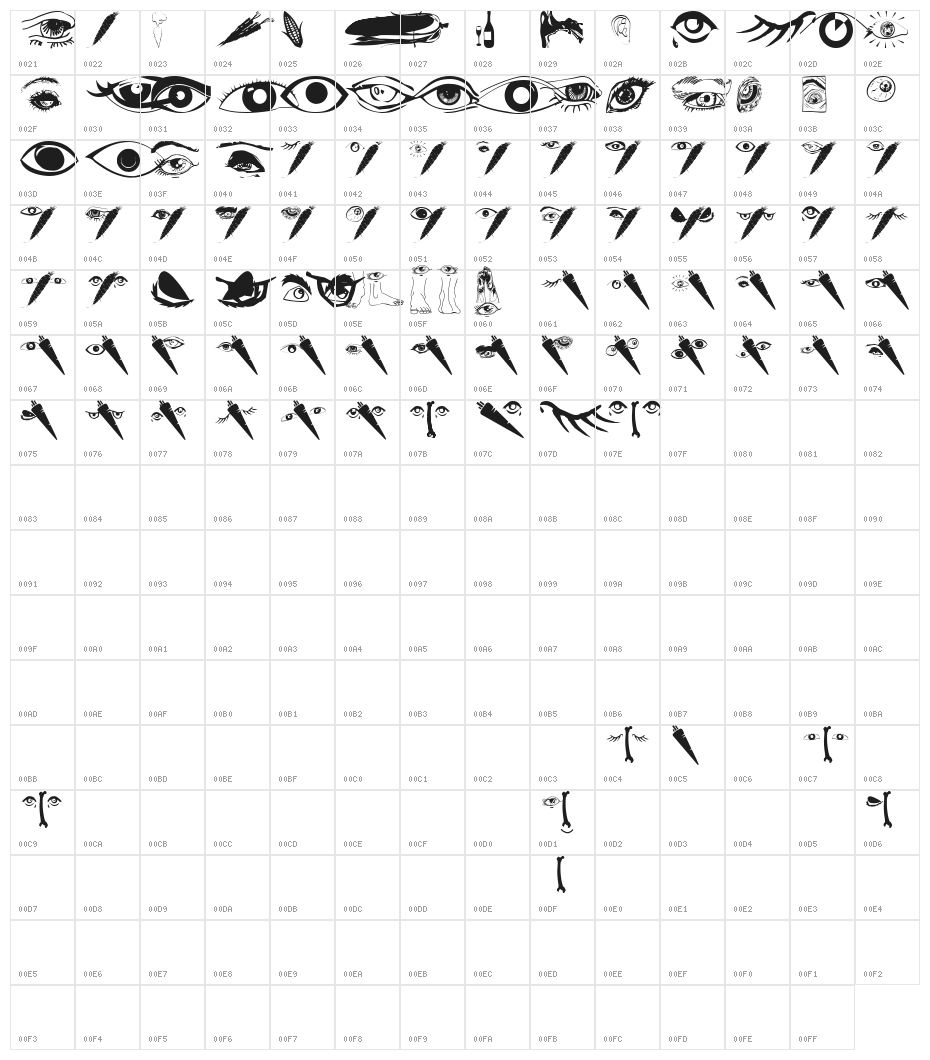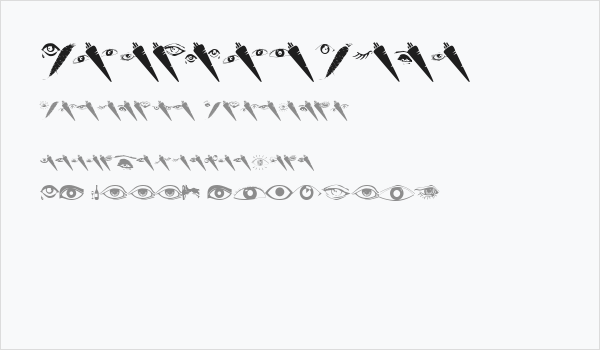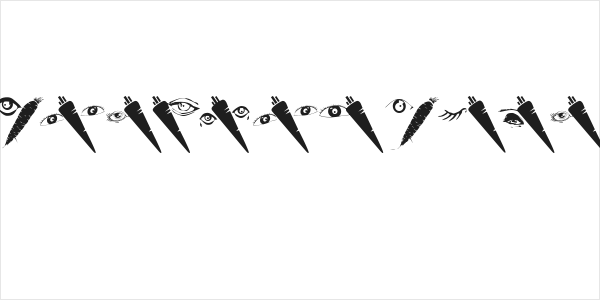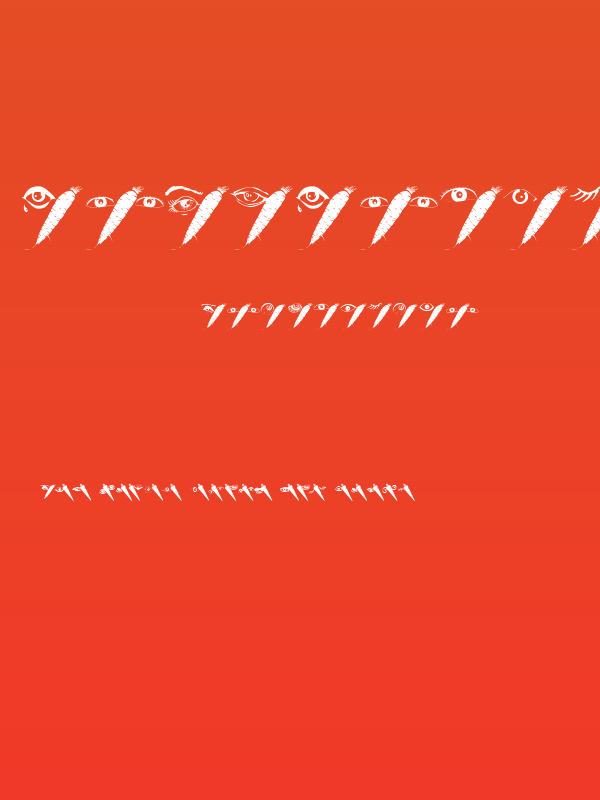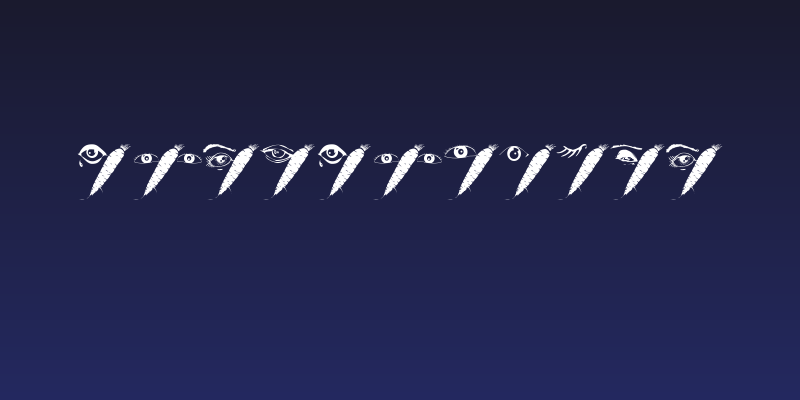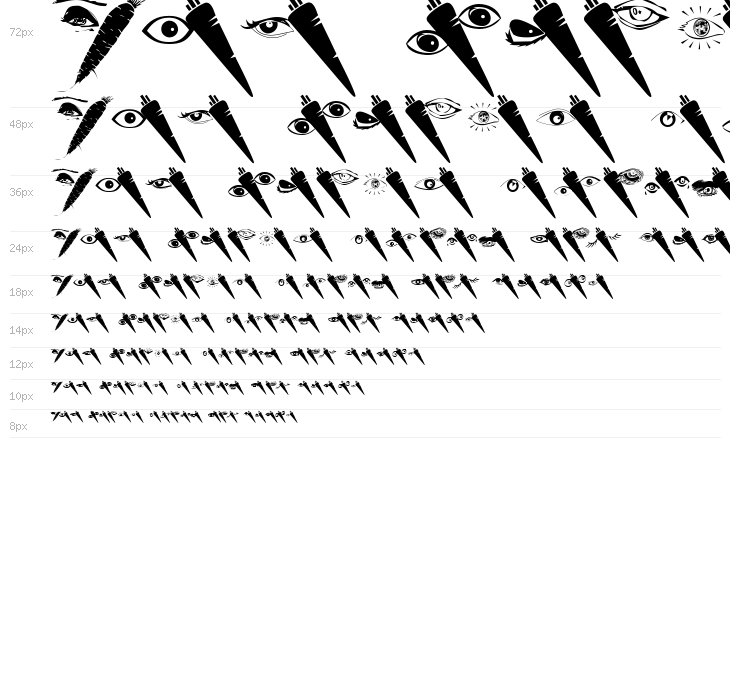
WysiwygBats Font
WysiwygBats Description
This is not a traditional font but rather a collection of whimsical and artistic symbols. Each character is represented by a unique illustration, primarily featuring eyes and abstract shapes. The style is playful and imaginative, with a hand-drawn aesthetic that evokes a sense of creativity and artistic expression. The symbols vary in complexity, with some being simple line drawings and others more detailed. This collection is ideal for projects that require a touch of artistic flair and individuality.
| Overall Style | Artistic, Whimsical |
| Use Case | Decorative illustrations, Art projects, Branding elements |
| Proposed Projects | Ideal for creative projects such as art prints, unique branding elements, or decorative illustrations in editorial design. |